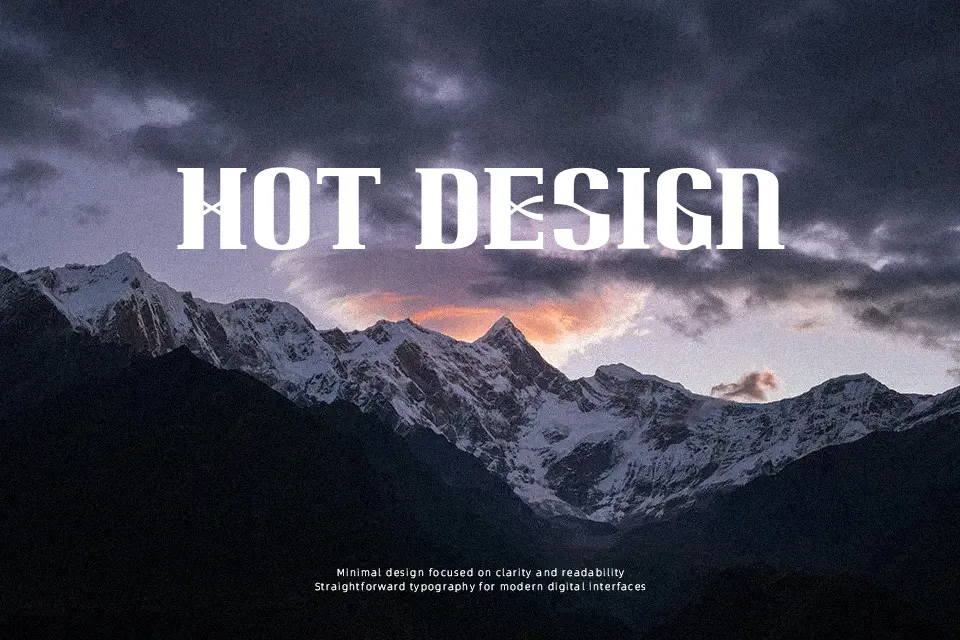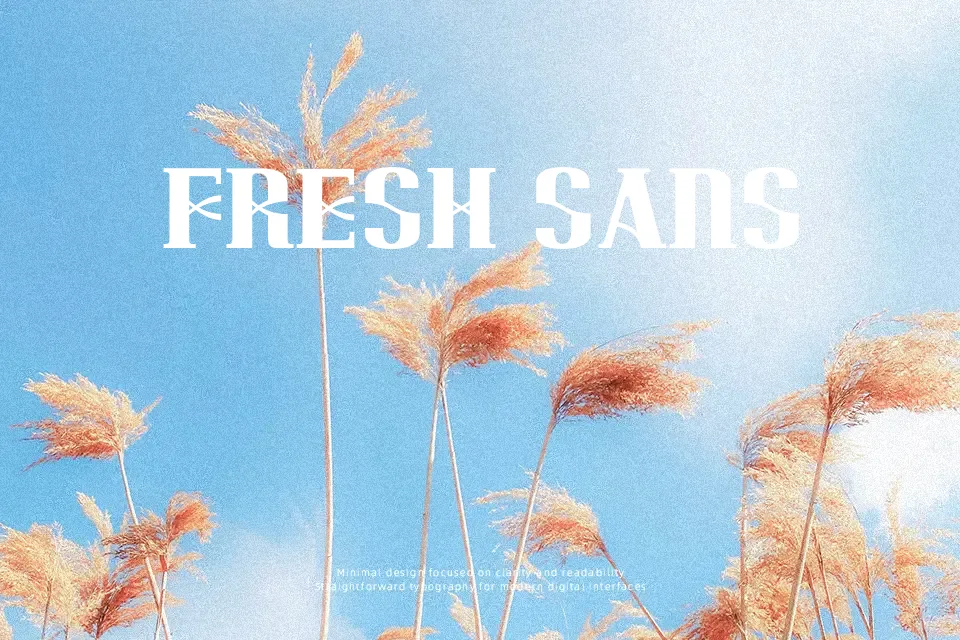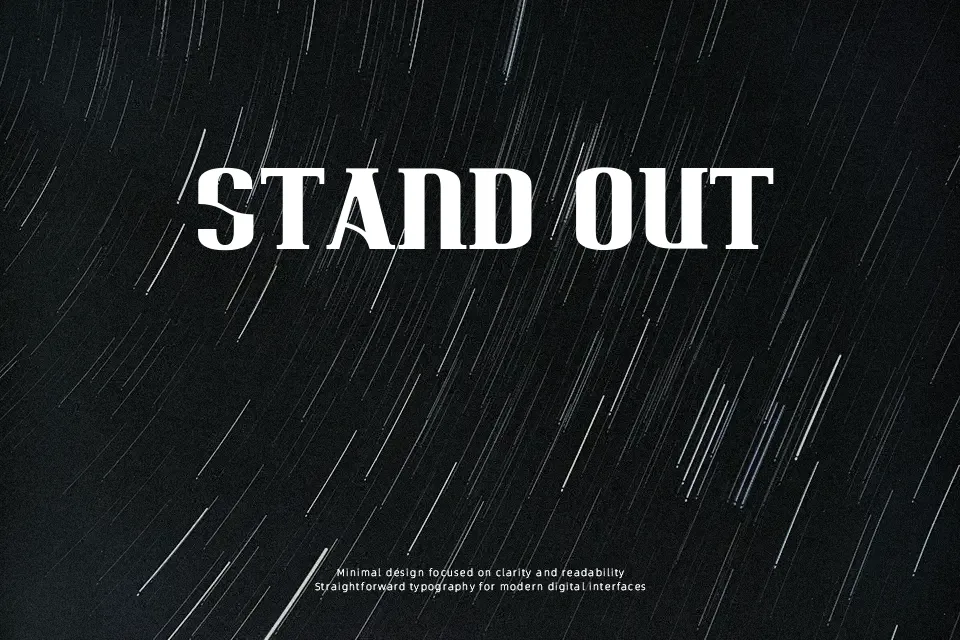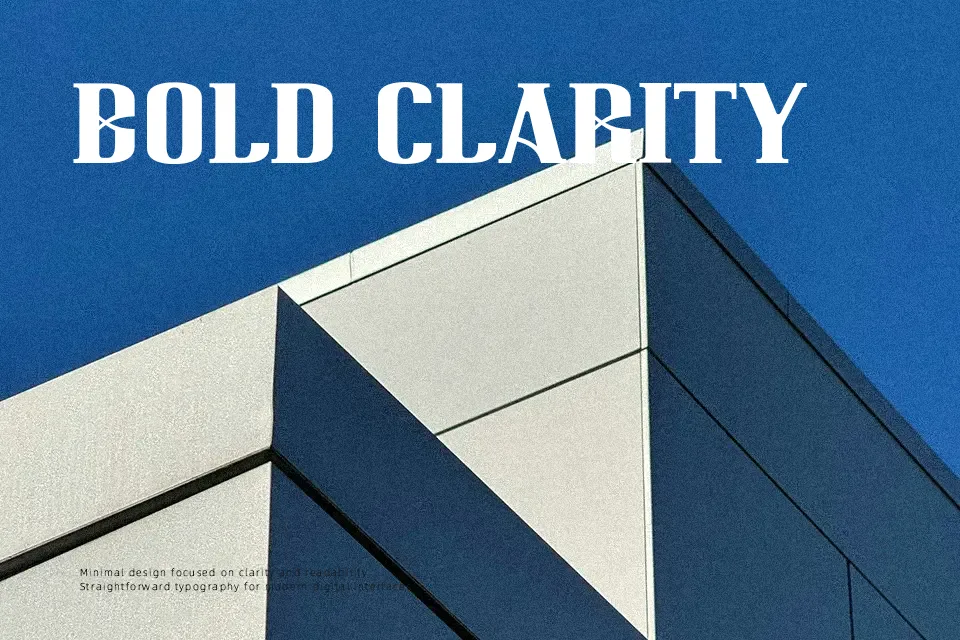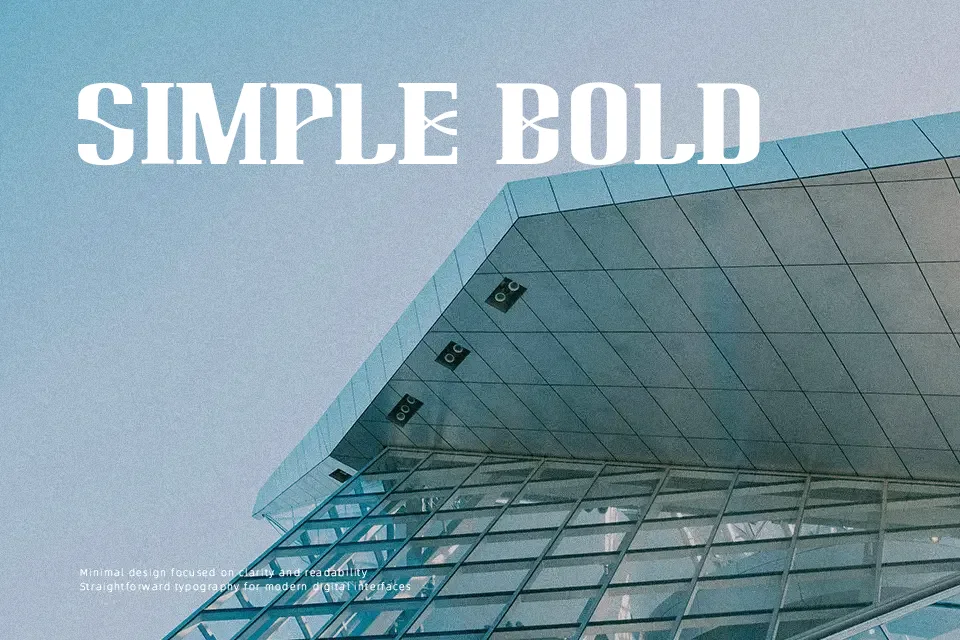
Arnprior Font
Designed by Typodermic Fonts
Arnprior carries an unusual structural logic — instead of standard letterform strokes, the design uses modular adornment units and rhythmic wavy crossbars that give each character an almost mechanical, yet playful tension. The overall feel lands somewhere between vintage sci-fi and industrial decoration: angular enough to read as assertive, but loose enough to avoid feeling cold. It works well on poster headlines, gaming or band logos, and zine-style editorial headers where the font’s quirky geometry is an asset rather than a distraction. That said, Arnprior is not a workhorse — at small sizes, the decorative stroke replacements collapse into visual noise, making it unsuitable for body text or UI copy. Designers who need legibility at 12–14pt should look elsewhere.
Best For:- sci-fi movie or event poster headlines
– retro gaming logo and title screens
– zine covers and experimental editorial headers
– band merchandise and album title treatments
Not Ideal For:- body text or paragraph-level copy
– corporate or professional business documents
– mobile UI labels and navigation text
– fine print, footnotes, or captions
Perfect for branding, editorial, and gaming, with a bold and decorative style.